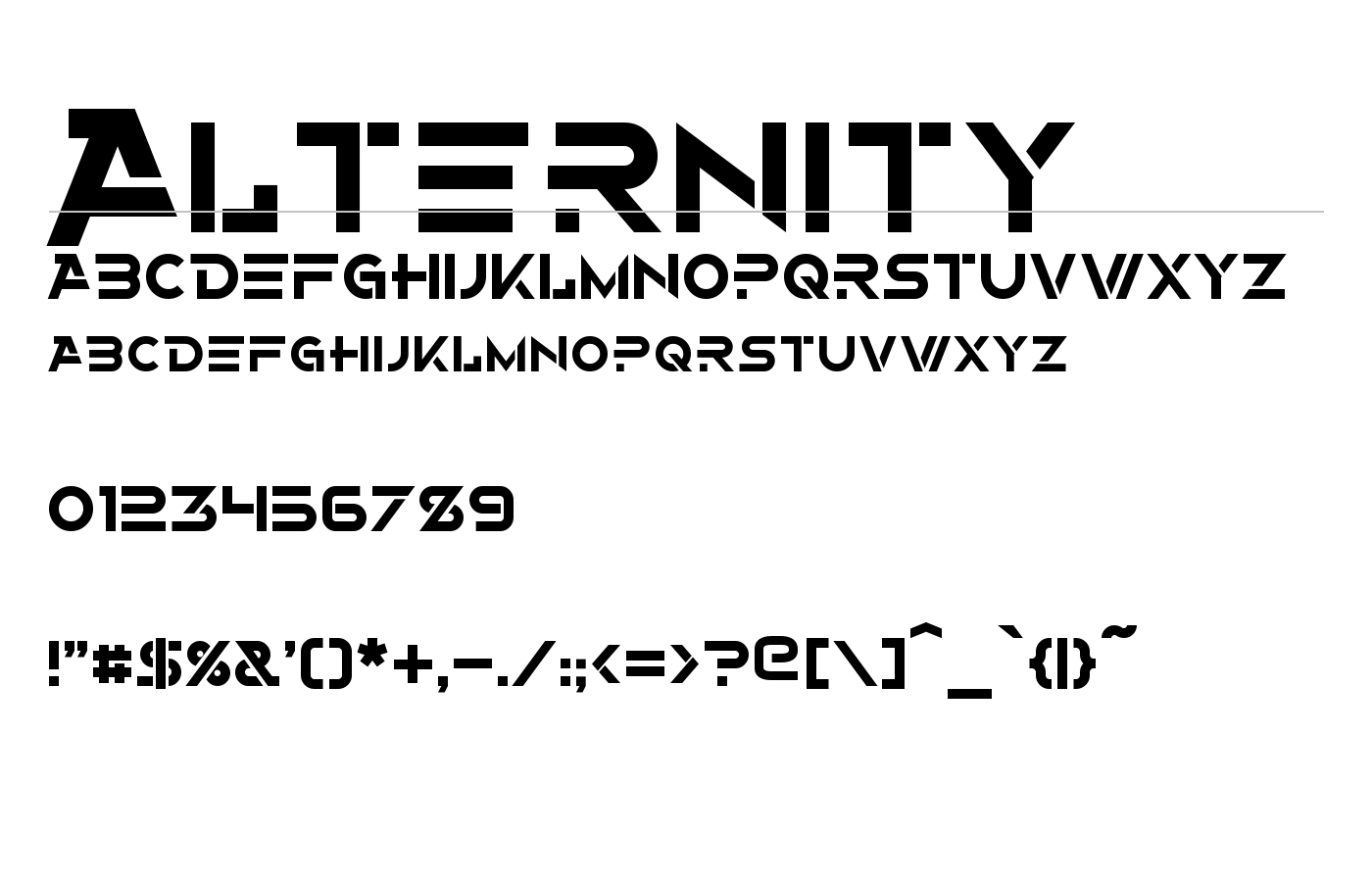
Alternity is a bold, geometric sans serif font with a futuristic and tech-inspired style, featuring sharp angles and a striking mix of solid and cut-out shapes that create a distinctive fragmented look. Its unique letterforms and consistent stroke weight give it a modern, edgy personality, making it ideal for branding, posters, and headlines where a strong, innovative presence is needed. This font's eye-catching design is perfect for technology, gaming, or creative industries seeking a high-impact visual identity.
Alternity Font
About Alternity Font